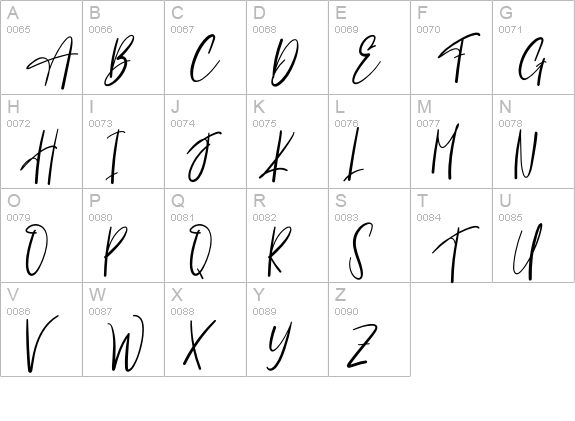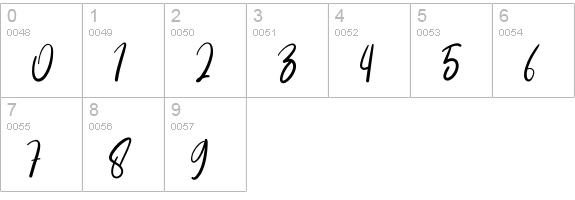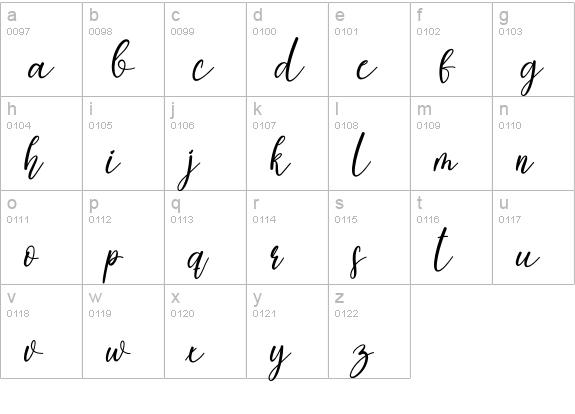
Holidays2 Font Details
Holidays2 is a free for personal use font in the Script > Handwritten category, designed by scratchones. It has been downloaded 7 times and is available for Windows, Mac and Linux.
Holidays2 font is a whimsical and playful typeface that exudes a festive and joyful vibe, making it perfect for holiday-themed designs and projects. With its charming and decorative style, Holidays2 font adds a touch of cheer and warmth to any design it is used in. Featuring unique and creative letterforms, this font is sure to make your text stand out and capture attention.